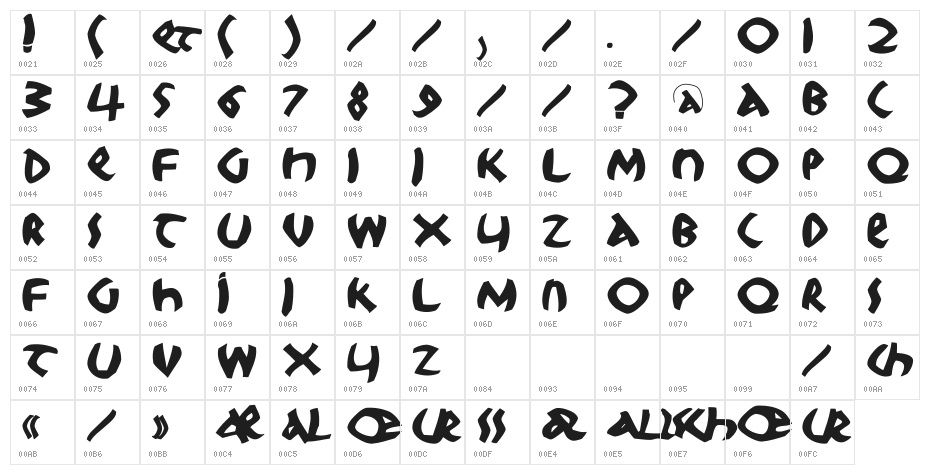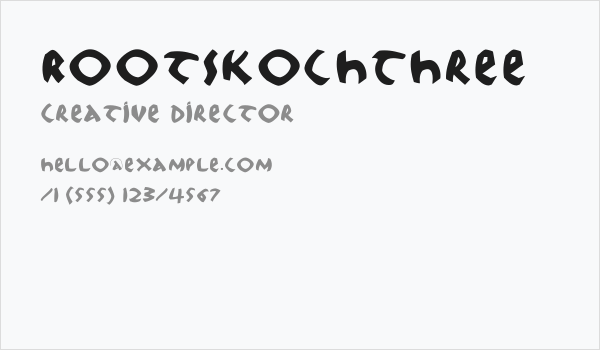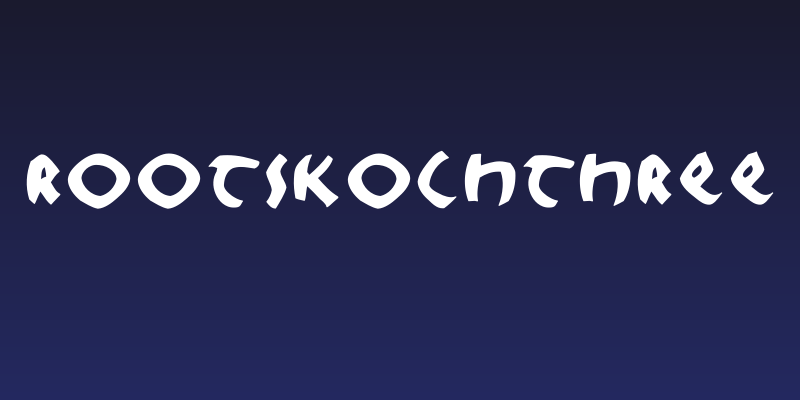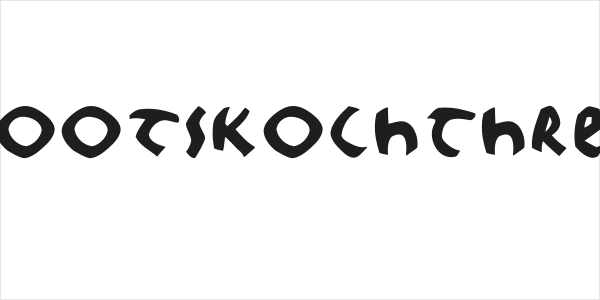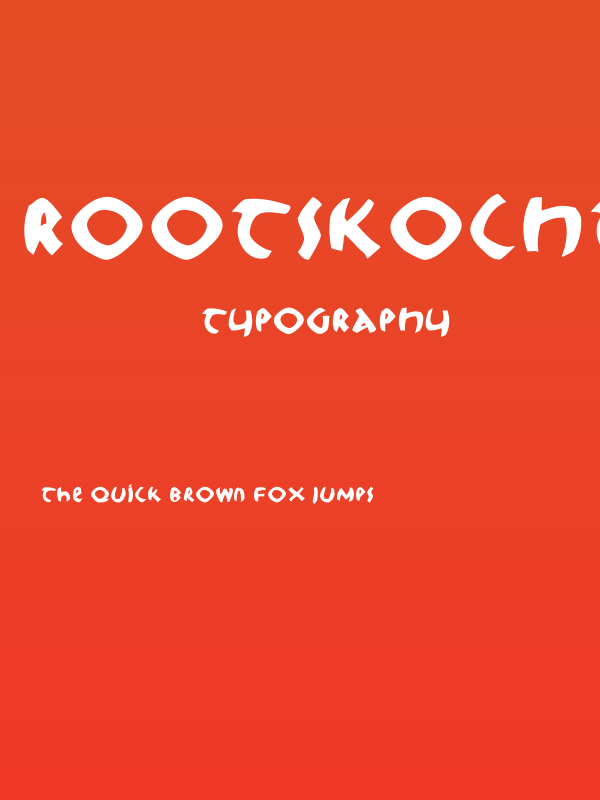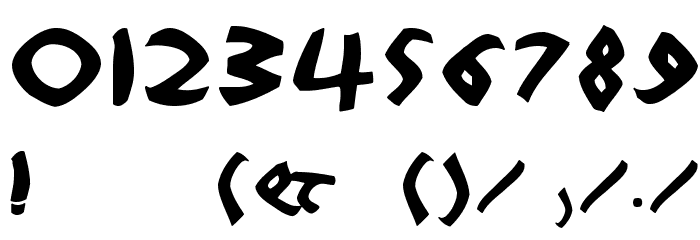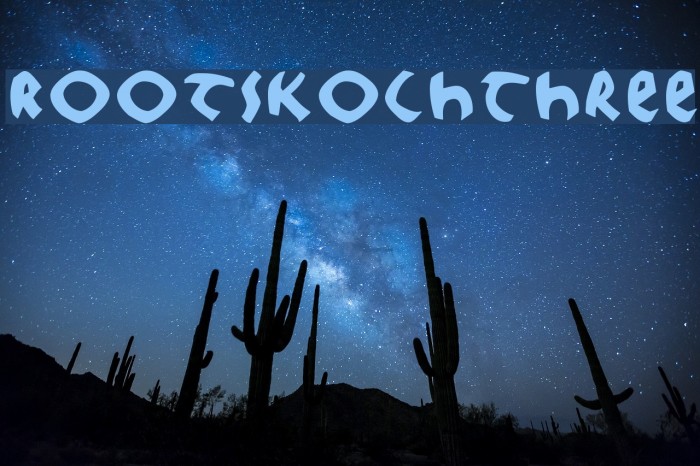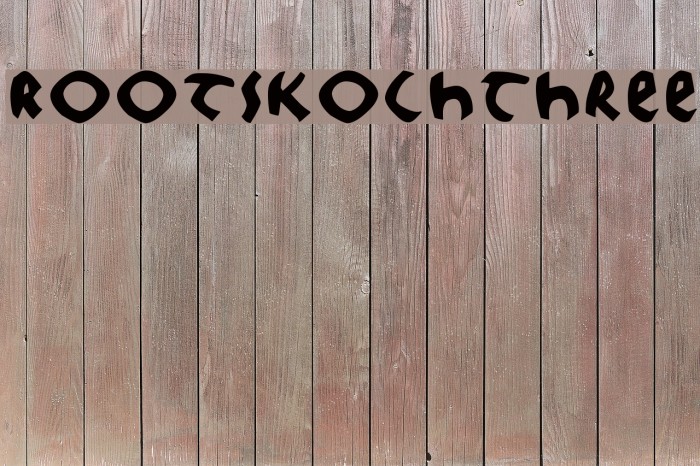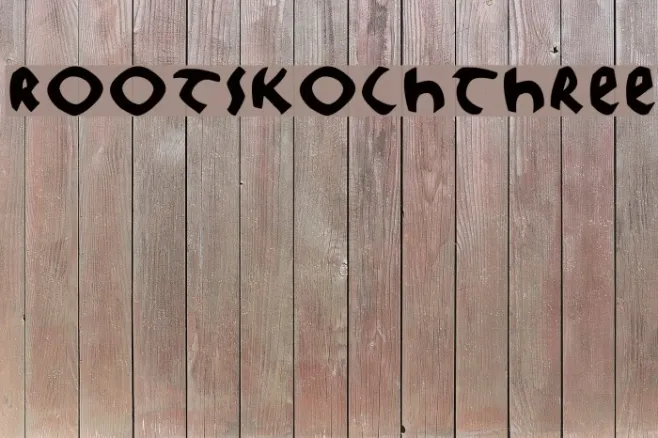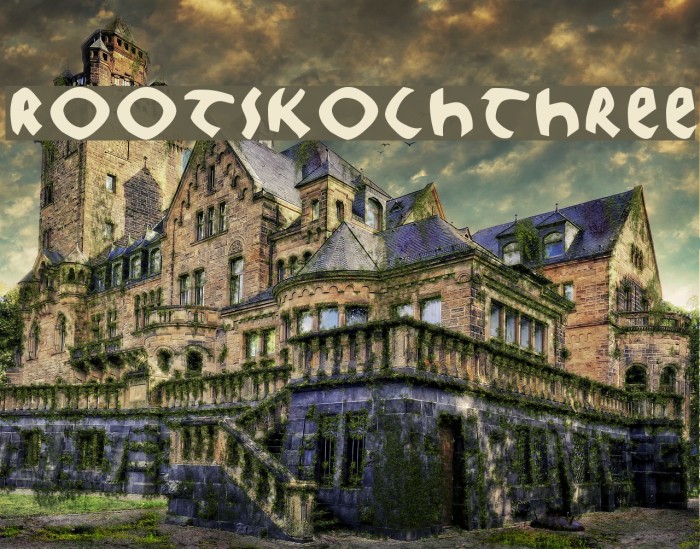
RootsKochThree Font
RootsKochThree Description
This font features a bold and dynamic style with a hand-drawn appearance. The characters exhibit a playful and artistic flair, with each letter having a unique, slightly irregular form that adds to its charm. The strokes are thick and consistent, giving the font a strong presence. The overall design is reminiscent of brush lettering, with a sense of movement and energy. The numbers and special characters maintain the same lively and bold characteristics, ensuring a cohesive look across all elements.
| Use Case | Logos, Posters, Headlines |
| Proposed Projects | Ideal for creative projects such as posters, logos, and branding that require a bold and artistic touch. |